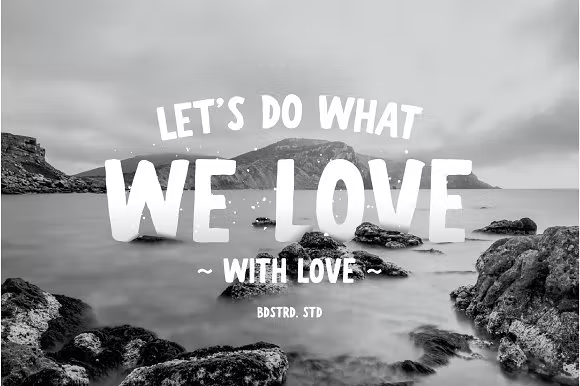
Boldoa Mat Font
Bodoa Mat inspired by an inscription on the window of a trader in one school. Is a seller “batagor”, which is a typical food of Indonesia. Boldoa Mat designed specifical…
Bodoa Mat inspired by an inscription on the window of a trader in one school. Is a seller “batagor”, which is a typical food of Indonesia. Boldoa Mat designed specifically for the needs of themed design vintage, classic, and other matters relating to the Handmade. Boldoa Mat is a rough handwriting. Enjoy.
Where Boldoa Mat Font works best
A short phrase in Boldoa Mat Font carries warmth that a typeset sans cannot fake; keep the rest of the card plain.
Chalkboard-style headings in Boldoa Mat Font make a menu feel hand-made. Keep the dish descriptions in a simple face so prices stay readable.
One line of Boldoa Mat Font over a photo is enough; the script carries the tone and the caption does the work.
What kind of work does Boldoa Mat Font suit?
It sits in the Script And Handwritten group and reads as classic, handwritten, script, script and handwritten. That makes it a candidate wherever those qualities help: headings, packaging, social graphics and brand work. Set it at the size you plan to use before deciding.